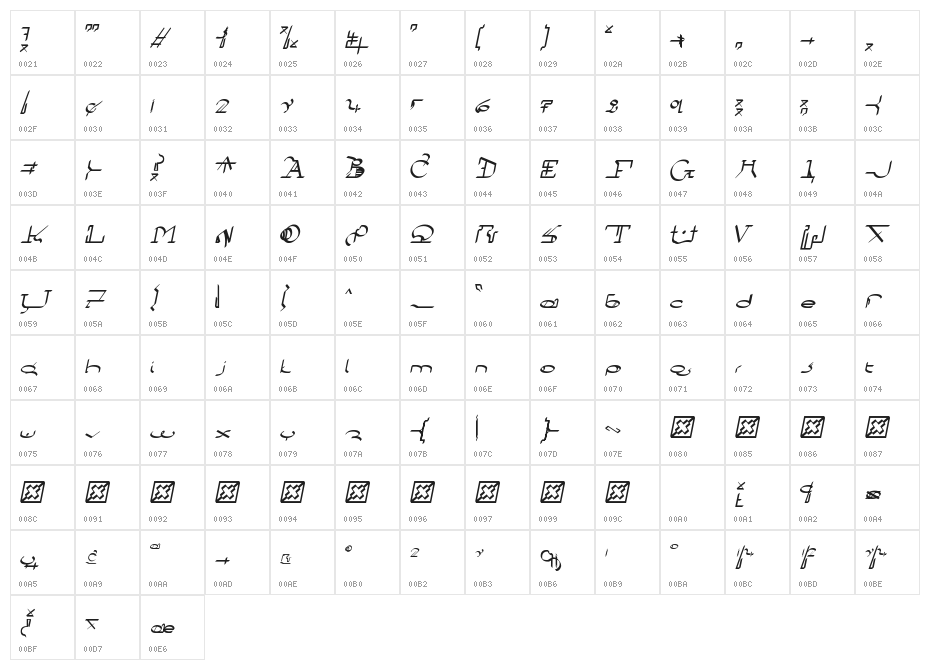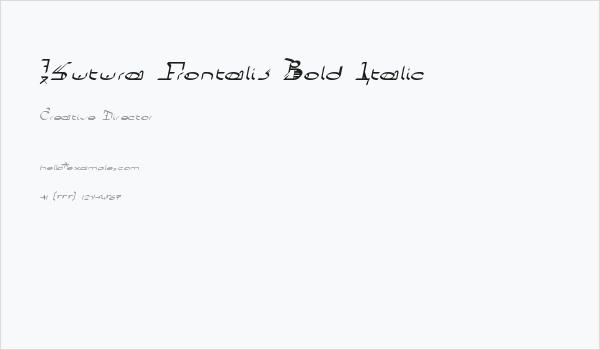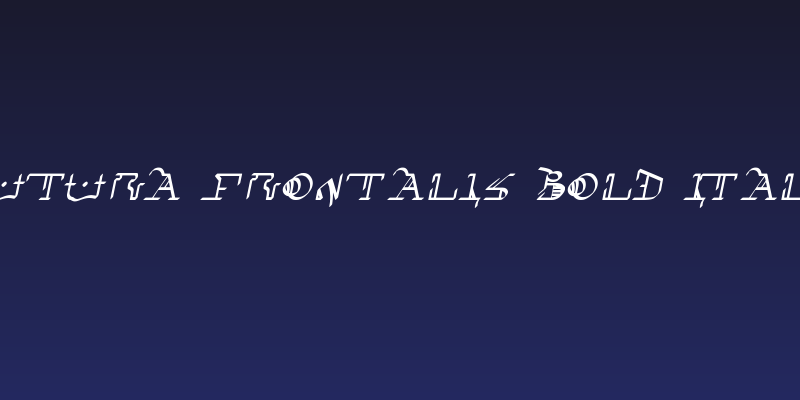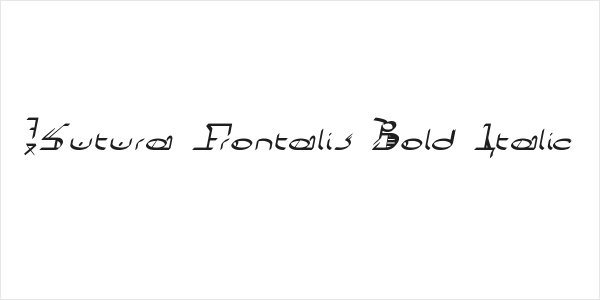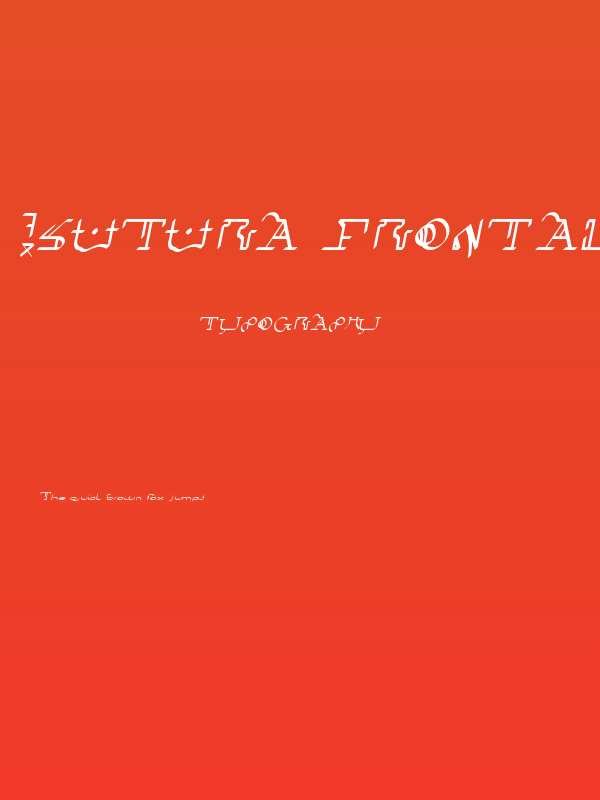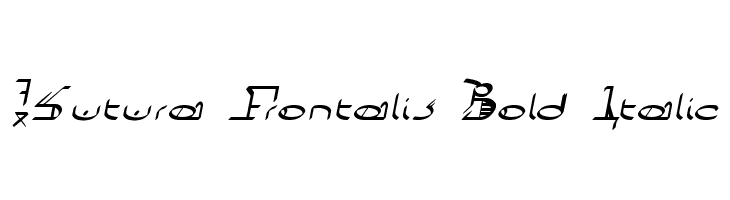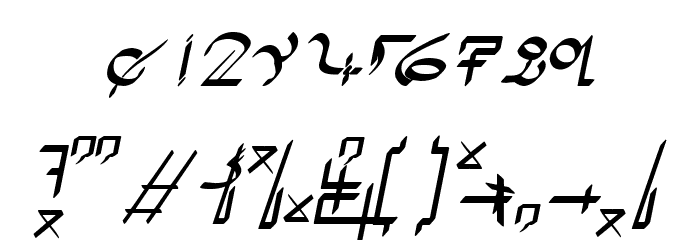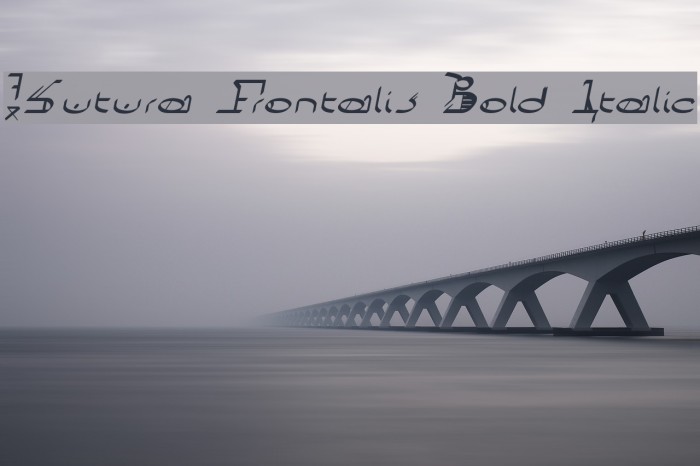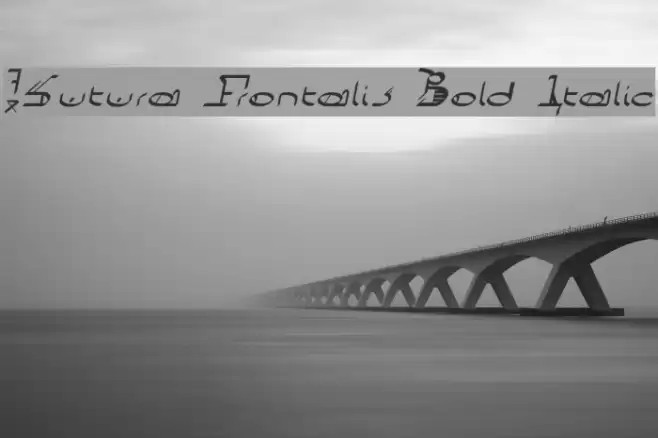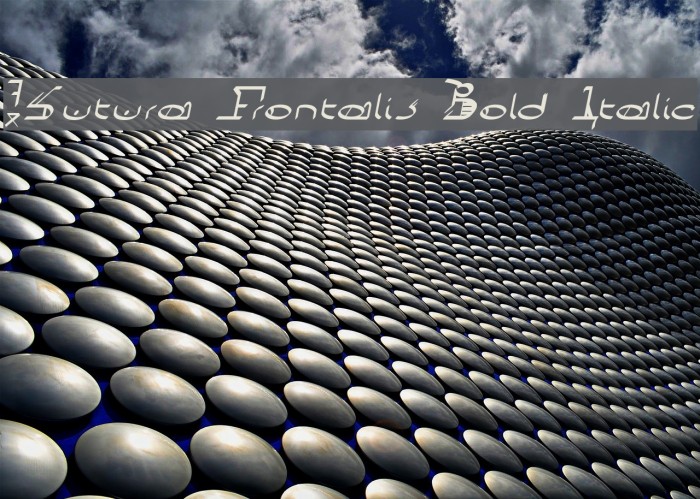
!Sutura Frontalis Bold Italic Font
!Sutura Frontalis Bold Italic Description
This font exhibits a bold and italic style with a distinctive, angular design that gives it a futuristic and edgy appearance. The characters are crafted with sharp, pointed edges and dynamic curves, creating a sense of movement and energy. The uppercase and lowercase letters maintain a consistent style, with unique variations that add to the font's character. The numerals and special characters are equally stylized, ensuring a cohesive look across all elements. This font's boldness is complemented by its italic slant, enhancing its modern and avant-garde aesthetic.
| Proposed Projects | Ideal for sci-fi themed projects, modern branding, edgy posters, and innovative product packaging. |